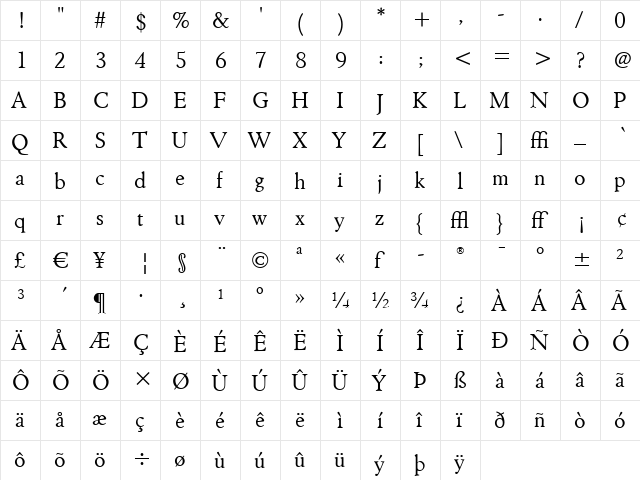
Winchester New ITC Book
| Foundry | International Typeface Corporation |
Design Context for Winchester New ITC Typeface
Winchester New ITC offers clean, dependable letterforms without strong stylistic allegiance, making it a practical choice for designers who need flexibility.